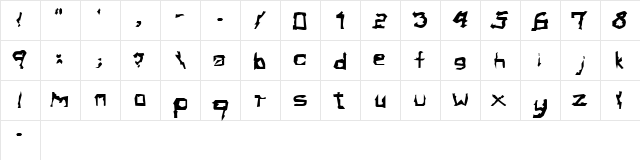
Electamine Oddtype
Design Context for Electamine Typeface
Electamine is a composed and adaptable typeface that performs quietly and consistently across a wide range of design contexts.